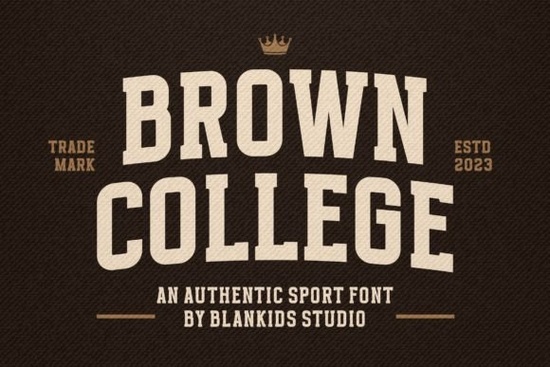
If you're looking for a bold, energetic font that captures the spirit of college sports and campus life, Brown College Font is a great choice. It’s designed with authenticity in mind drawing from real college typography traditions while keeping things playful and modern. Whether you’re creating posters for a school event, designing merchandise, or working on book covers, this display font adds instant character.
What makes Brown College Font stand out?
Unlike generic fonts that feel flat or overused, Brown College brings a unique vibe. The letterforms have a hand-drawn quality that feels personal and lively. It works well in both uppercase and lowercase, though it truly shines when used in all caps for headlines, slogans, and branding elements.
You’ll notice subtle details like uneven stroke weights and slight imperfections features that give it a genuine, handmade look. These aren’t flaws; they’re what make the font feel authentic and full of personality. Perfect for anyone who wants to avoid sterile digital designs.
Great for creative projects across many areas
Designers and crafters love using this font because it fits so many purposes:
- Posters and flyers – ideal for school events, sports games, or themed parties
- Merchandise – T-shirts, tote bags, mugs, and stickers come alive with this bold style
- Book covers – especially effective for young adult or school-themed stories
- Logotypes and branding – gives small businesses and creative studios a memorable visual identity
- Packaging – adds fun and energy to product labels, especially for food, drinks, or craft goods
It’s not just about looks it’s about feeling. When someone sees your design using Brown College, they immediately sense enthusiasm and connection. That’s powerful in today’s crowded visual landscape.
How to get the most out of Brown College Font
Using any display font effectively comes down to balance. Because Brown College is bold and eye-catching, it works best when paired with simpler typefaces. Try combining it with a clean sans-serif (like Open Sans or Lato) for body text or captions.
Also consider color contrast. White or light-colored text on dark backgrounds often highlights the font’s structure beautifully. But don’t be afraid to experiment adding a soft shadow or subtle texture behind the letters can deepen the visual impact.
Final tip: Start small, test widely
Before committing to a large project, test the font in a few mockups. See how it looks at different sizes and on various backgrounds. This helps you avoid surprises later and ensures your final design hits the mark.
Whether you’re a designer, hobbyist, or running a small shop, Brown College Font adds a touch of fun and authenticity that’s hard to replicate. It’s not just another font it’s a tool for telling stories through typography.